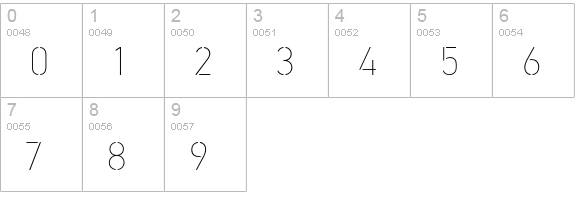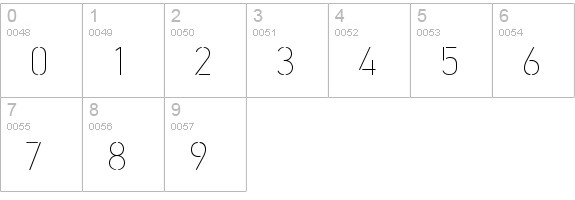
PFDinStencil-ExtraThin Font Details
PFDinStencil-ExtraThin is a sleek and modern font that exudes elegance and sophistication. With its extra thin strokes and clean lines, this font is perfect for adding a touch of refinement to your design projects. The stencil style adds a contemporary edge, making PFDinStencil-ExtraThin a versatile choice for a wide range of applications. The best part? PFDinStencil-ExtraThin is available for free download at FontsMarket.com. Whether you're working on a branding project, creating invitations, or designing a website, this font will elevate your work with its minimalist yet impactful aesthetic. Don't miss out on the opportunity to enhance your designs with this stunning typeface that is both stylish and effortlessly chic. Download PFDinStencil-ExtraThin today and let your creativity shine!